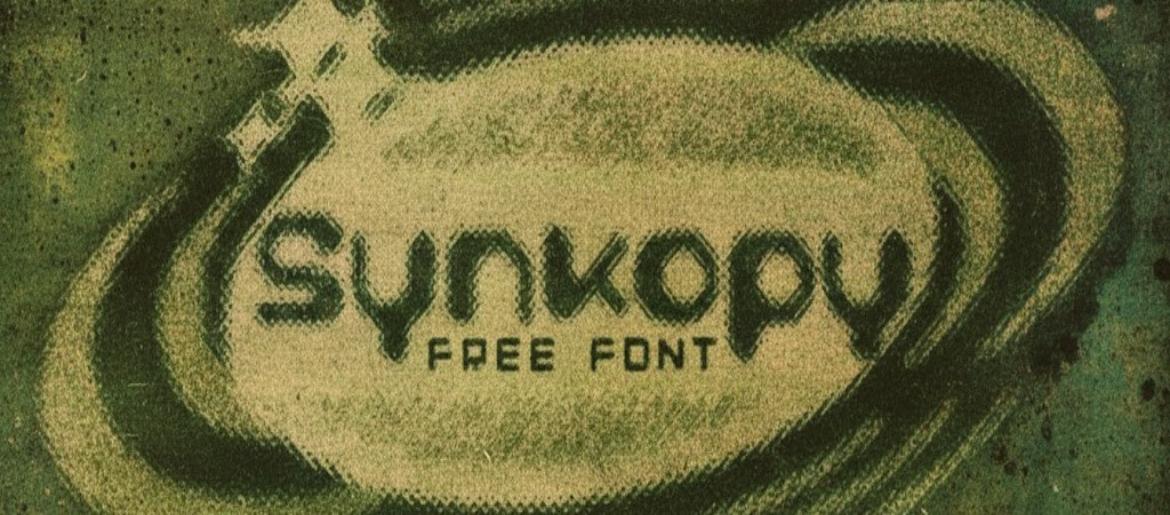
Synkopy Font
Synkopy Font is a bold display typeface known for its rhythmic, syncopated letterforms and strong geometric influence. It creates a dynamic visual flow, making it ideal for posters, branding, headlines, and experimental typography. Its striking personality and modern structure help designs stand out while fitting seamlessly into contemporary and visually energetic free fonts collections.